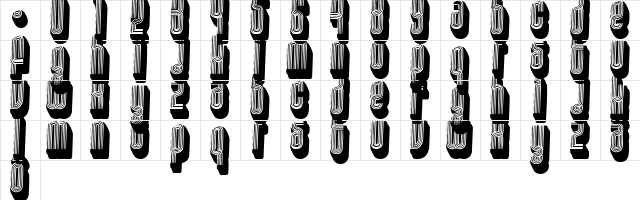
disco 3 fenotype
Style: fenotype
Design Context for disco 3
disco 3 is a composed and adaptable typeface that performs quietly and consistently across a wide range of design contexts.